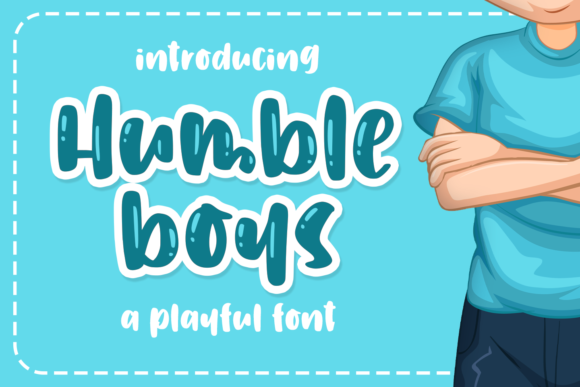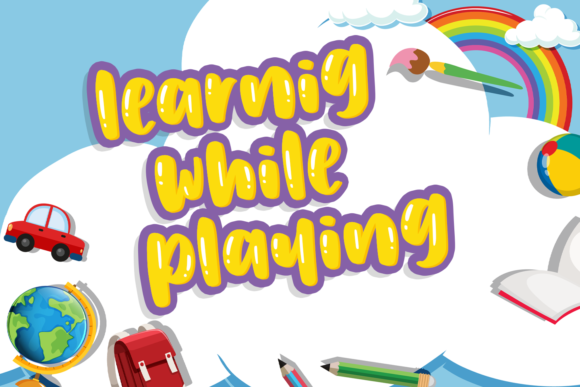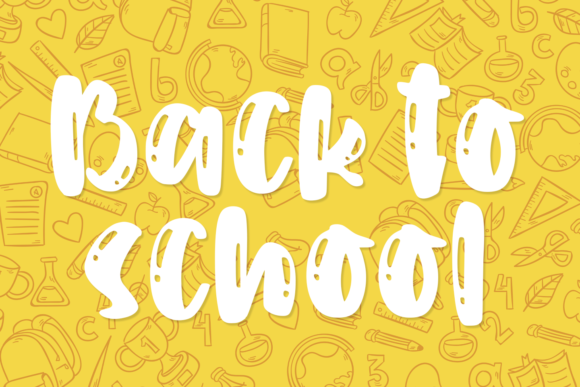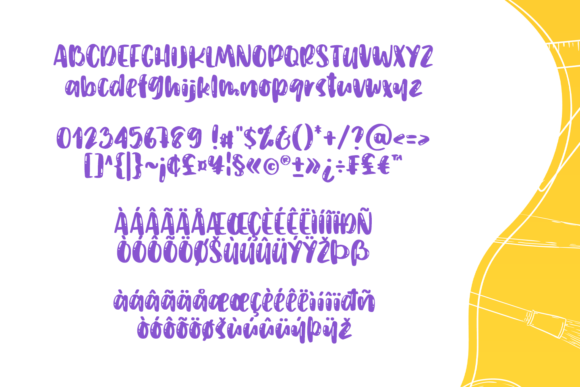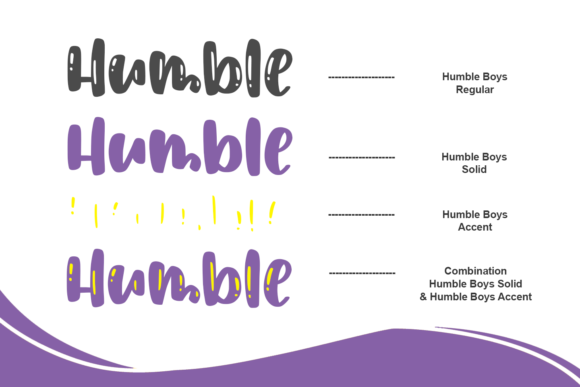
Humble Boys Font
About Humble Boys Font
Humble Boys embodies fun, quirkiness and authenticity. This enchanting handwritten font will turn any creative idea into a true standout.